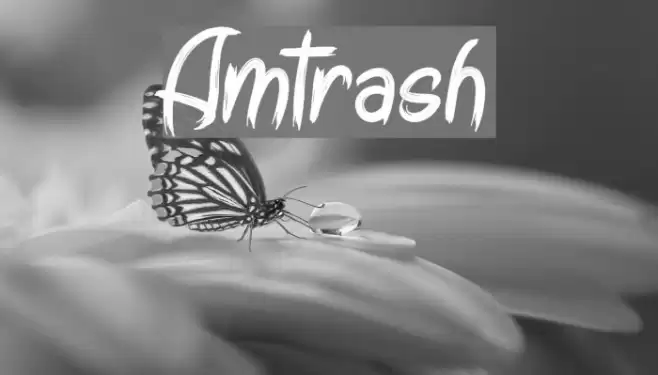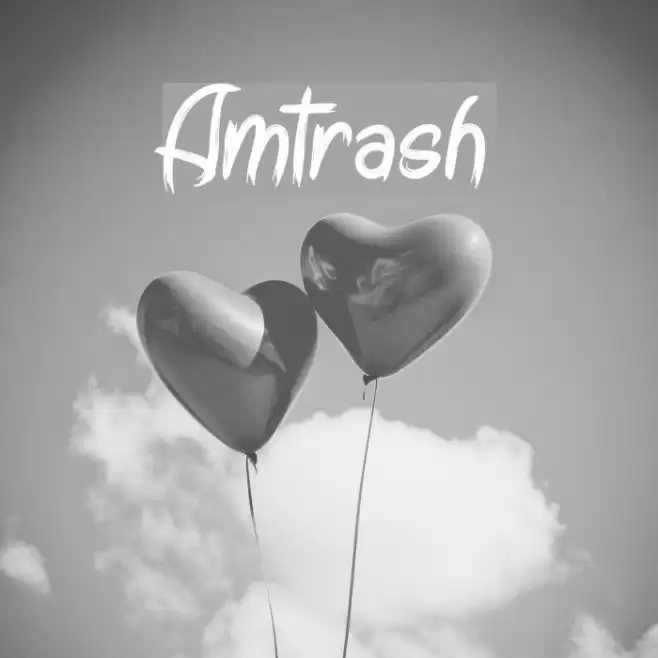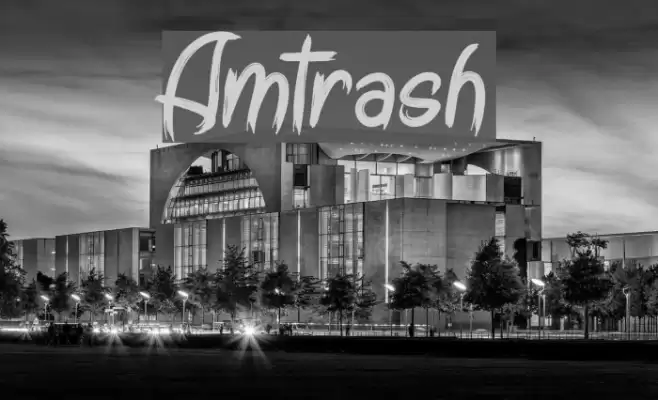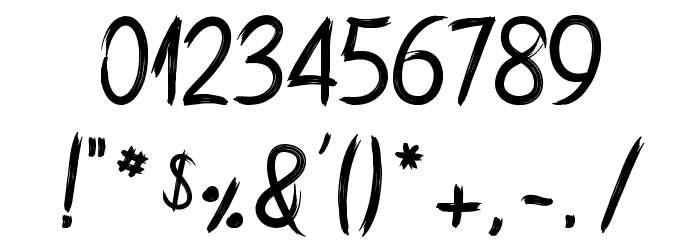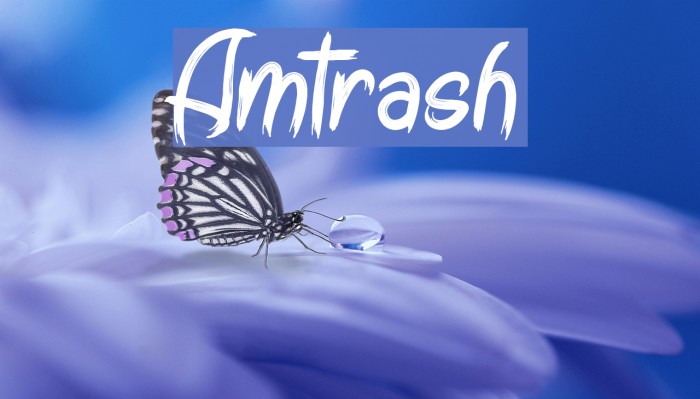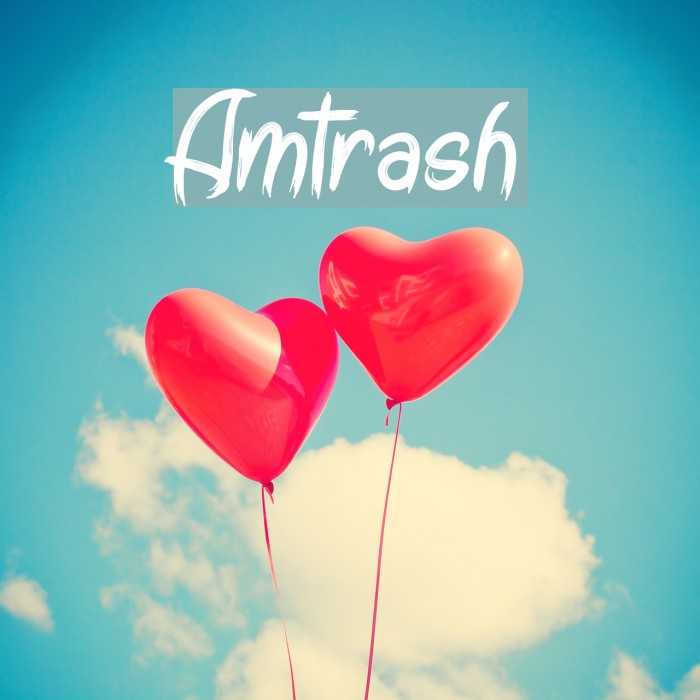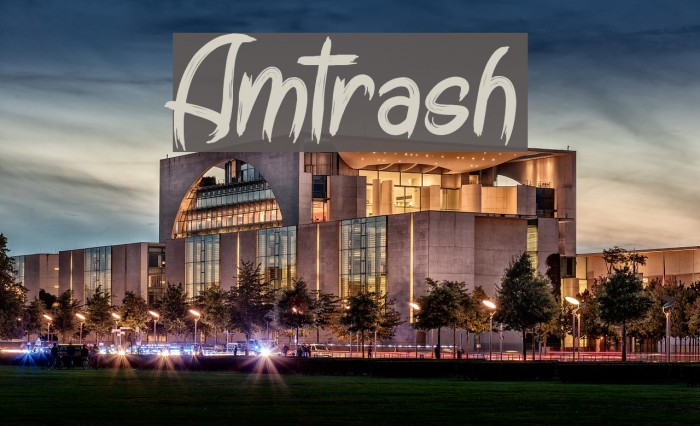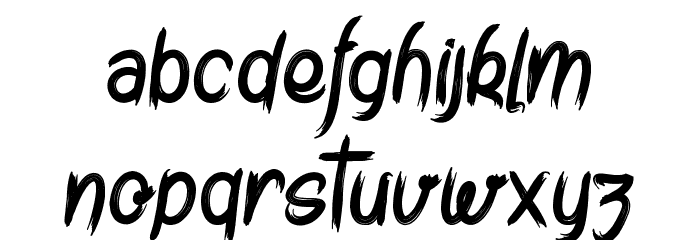
Amtrash Font
Amtrash Description
This font features a bold and dynamic brush script style, characterized by its expressive and energetic strokes. The letters have a hand-painted appearance, with varying thickness that adds a sense of movement and flair. The uppercase letters are particularly striking, with exaggerated curves and sharp angles that create a dramatic effect. The lowercase letters maintain the same lively style, offering a cohesive look throughout. Numbers and special characters are designed with the same attention to detail, ensuring versatility across different uses. This font is perfect for projects that require a bold, artistic touch.
A bold, dynamic brush script with expressive strokes and a hand-painted look from Script fonts.
- Proposed Projects: Ideal for branding, posters, album covers, and any project needing a bold, artistic flair.